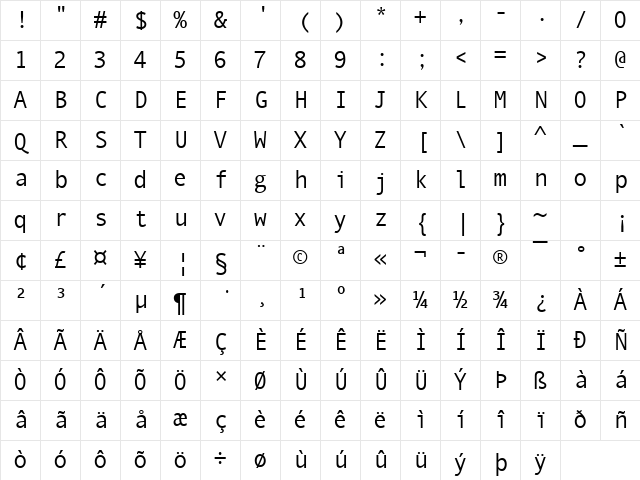
QuickType II Mono Regular
Foundry: Agfa Monotype Corporation
Design Context for QuickType II Mono
QuickType II Mono uses fixed-width spacing throughout, giving it the structured, systematic character associated with coding environments and technical documentation.
Pro Tip: Use QuickType II Mono with slightly increased line-height for extended reading - fixed-width spacing can feel dense in longer passages without extra breathing room.